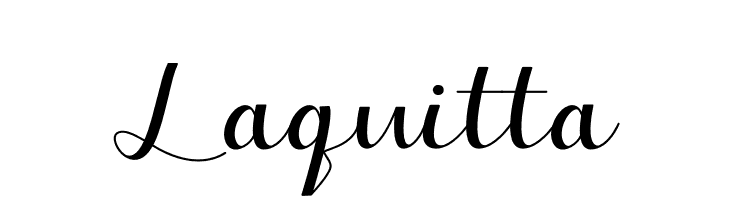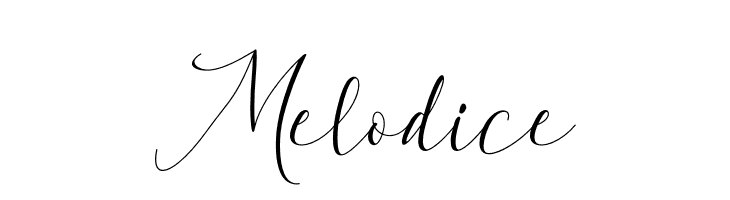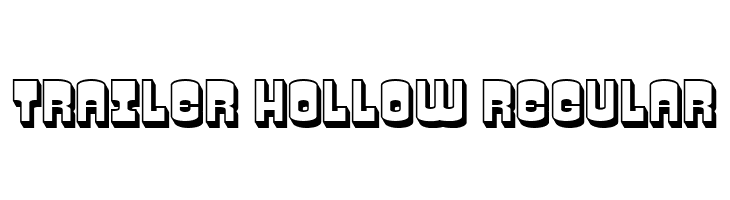
A bold, three-dimensional font with a hollow interior and shadow effect.
An elegant script font with graceful loops and high contrast strokes.
A modern, elegant script font with flowing cursive letters and graceful swashes.
A playful, casual handwritten font with smooth curves and irregular letterforms.
A modern slab serif font with tall, narrow characters and prominent curved serifs.
A graceful script font with flowing, interconnected letters and decorative swashes.
A modern serif font with elegant, slightly condensed characters.
A bold, distressed font with a grunge effect and geometric structure.
A lively and dynamic script font with fluid, connected letterforms.
A pixelated, retro-style font reminiscent of early digital displays.